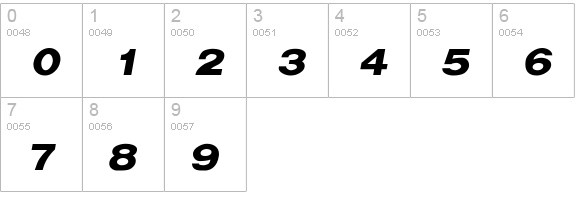
Arena Black Extended Italic Font Details
Arena Black Extended Italic is a maximum-weight, dramatic, extended-width, italic variant in the Arena typeface family \xE2\x80\x94 well suited to maximum-impact headlines, posters, and packaging.
The Arena Black Extended Italic font is a stunning display typeface that exudes elegance and sophistication. Its sleek and modern design makes it perfect for creating eye-catching headlines, titles, and signage. The bold, slanted letterforms command attention and add a touch of drama to any design project. This font is not only visually striking but also highly versatile, suitable for a wide range of applications from branding to editorial design. The Arena Black Extended Italic font effortlessly combines style and readability, making it a popular choice among designers looking to make a bold statement. Best of all, this font is available for free download at FontsMarket.com, allowing you to access this premium typeface without any cost. Don't miss out on the opportunity to elevate your designs with the Arena Black Extended Italic font today!